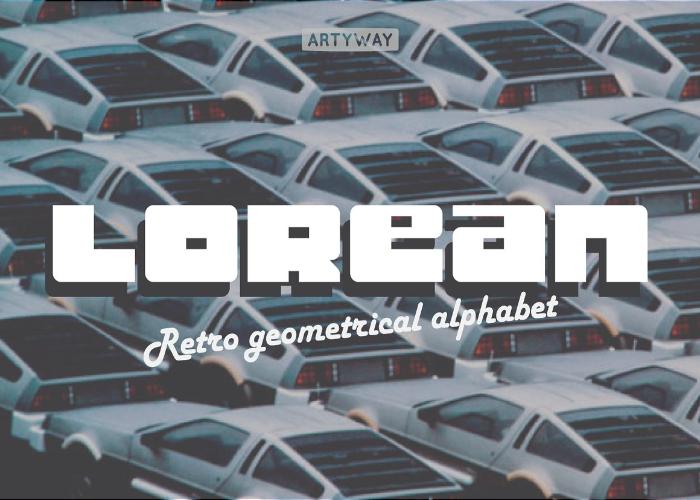
Are you a fan of Back to the Future and looking for a font with a similar feel? Meet Lorean — a free geometric display typeface inspired by the lettering found on the DeLorean car. Lorean blends retro sci‑fi character with modern, versatile shapes that are both surprising and soothing.
About Lorean
- Clean, geometric letterforms with a retro-futuristic vibe
- Modern and versatile — works well for logos, posters, branding, packaging, and headings
- Carefully designed to balance uniqueness with readability